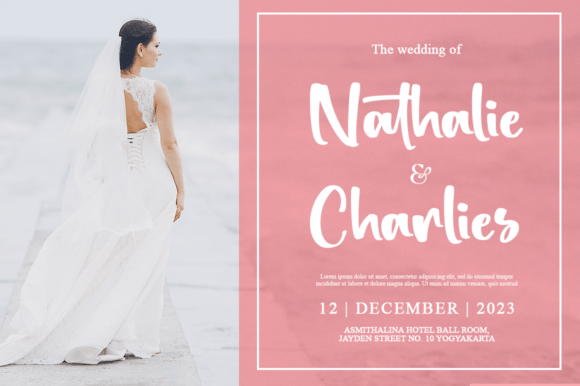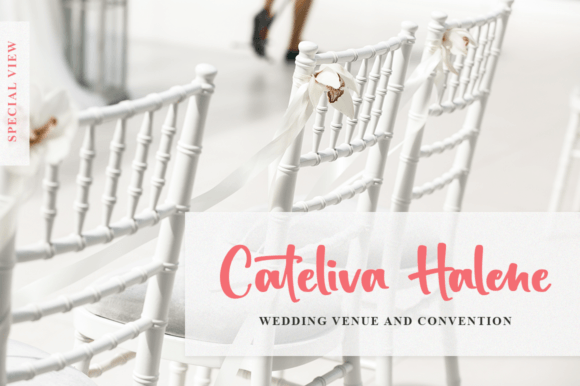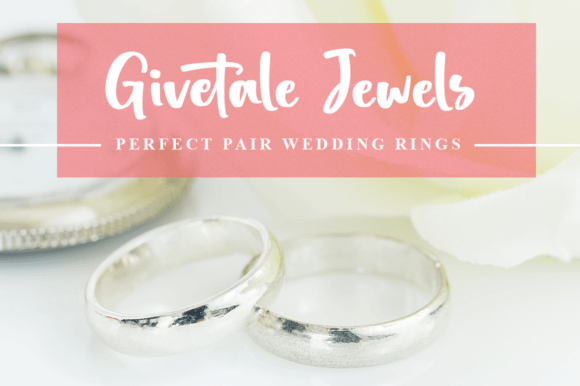
Introduction to Racosteur Font
Have you ever stared at a blank page, feeling the urge to create something special, yet struggling to find the perfect font to match your vision? That’s exactly what happened to me last week, when I was working on a design project and needed a font that exuded a playful, whimsical feel. After hours of browsing through font libraries, I stumbled upon the Racosteur Font – and it was love at first sight!
This charming handwritten script font has captured the hearts of designers and creatives worldwide, and for good reason. With its high-quality, imperfect design, the Racosteur Font adds a touch of personality to any creative project. Its transparent background makes it easy to pair with other design elements, while its free download feature makes it an invaluable resource for designers on a budget.
Whether you’re designing social media posts, greeting cards, or t-shirts, the Racosteur Font is sure to elevate your project with its unique, girly style. In this article, we’ll delve into the world of this popular font and explore its many uses, so keep reading to discover why the Racosteur Font is a must-have in every designer’s toolkit!
Key Features of Racosteur Font
- Unique, high-quality design with a transparent background, ideal for creative projects.
- High-resolution font, suitable for use at any size, without compromising on quality.
- Designed to be versatile, making it an excellent choice for a wide range of creative projects, from logos to typography-based art.
- Perfect for designers looking for a unique, high-quality font to elevate their creative project without breaking the bank.
Honest Review: Racosteur Font
I recently stumbled upon the Racosteur Font, and I must say it’s a high-quality addition to my design arsenal. The transparent background and stylish typography make it a great choice for creative projects where I want to make a statement.
One of the things that works well with this font is its versatility. It can be used in a variety of contexts, from modern logos to traditional branding materials. The font also comes with a free download, making it an attractive option for designers on a budget.
Here are some key features that I appreciate about the Racosteur Font:
- High-quality typography with a modern feel
- Transparent background for easy layering
- Great for creative projects, including logos, branding materials, and more
While the Racosteur Font is a solid choice, there are a few limitations to be aware of:
- ⚠️ Limited font styles and variations
- ⚠️ Not ideal for use in small text sizes, as it can be difficult to read
Overall, I’m impressed with the Racosteur Font and would recommend it to designers looking for a high-quality, modern font. It’s a great addition to any design resource library, and I’m excited to see how it performs in my future creative projects. ✨
For the best results, use Racosteur Font on a transparent background to create a clean and modern design. This font is perfect for creative projects that require a unique and eye-catching look. You can also download the font for free to use in your future design projects.
Racosteur Font is commonly used in branding, advertising, and digital design projects. Its high-quality design and transparent background make it an ideal choice for creative projects that require a professional and modern look.